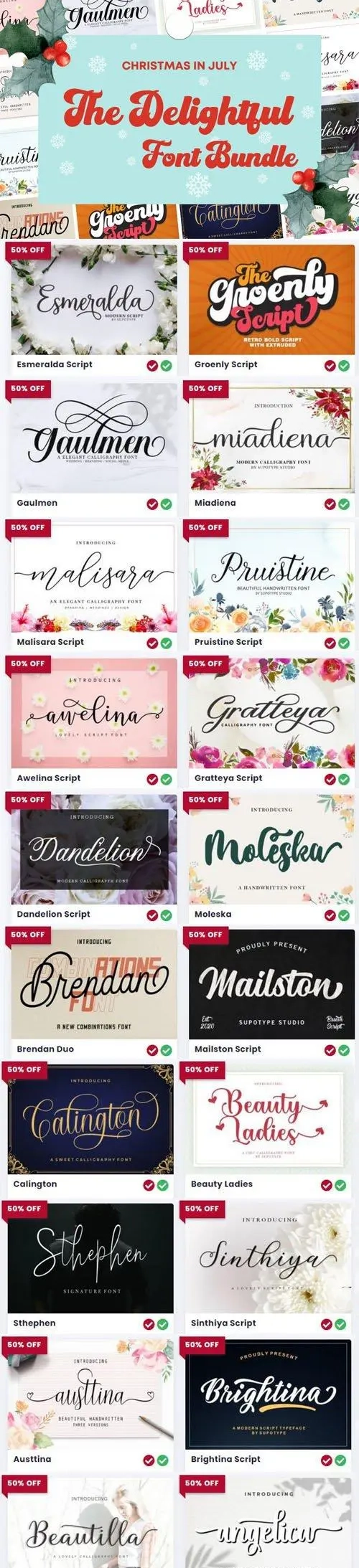
The Delightful Font Bundle – 20 Premium Fonts
Introducing The Delightful Font Bundle, a carefully curated collection of 20 premium fonts designed to elevate your creative projects. This bundle includes a diverse range of font styles, from elegant serifs to playful scripts, ensuring you have the perfect typeface for any occasion.
• 20 unique font styles
• Multiple weights and styles for versatility
Each font in this bundle has been crafted with precision, offering a range of weights and styles to suit various design needs. Whether you are creating branding materials, logos, or print designs, these fonts will provide the perfect finishing touch.